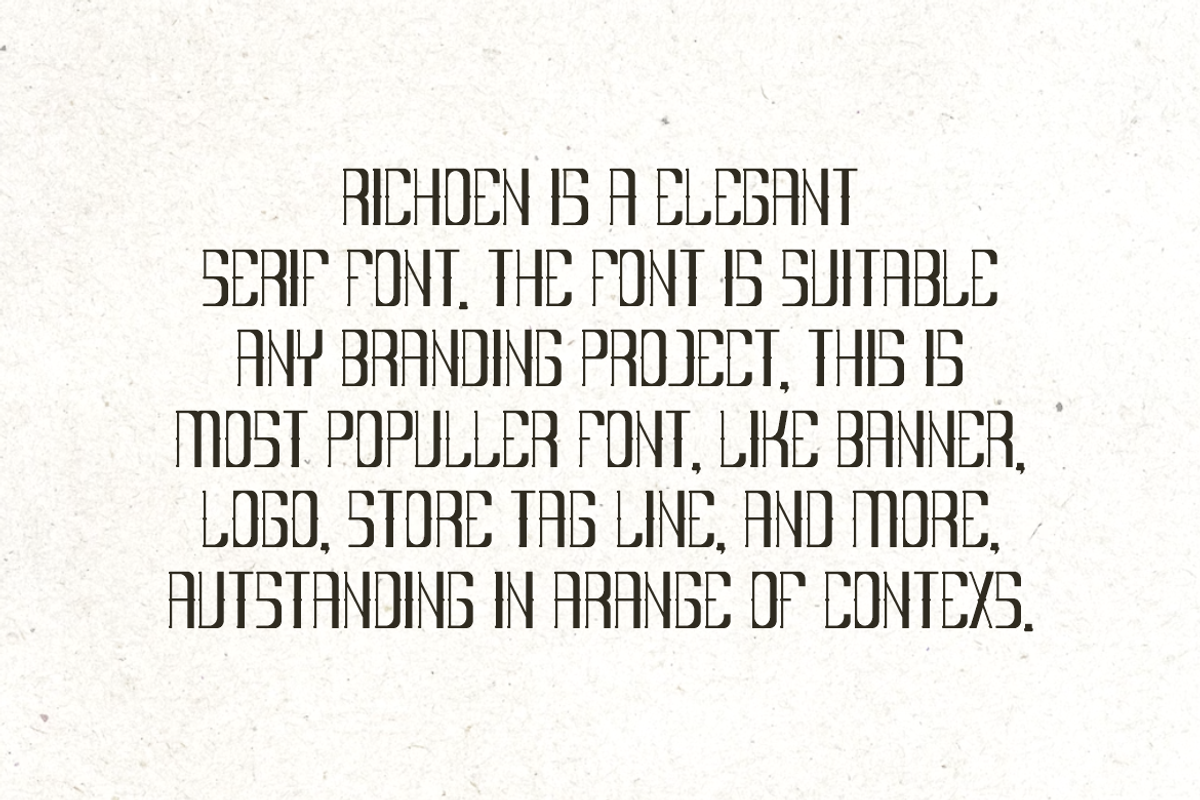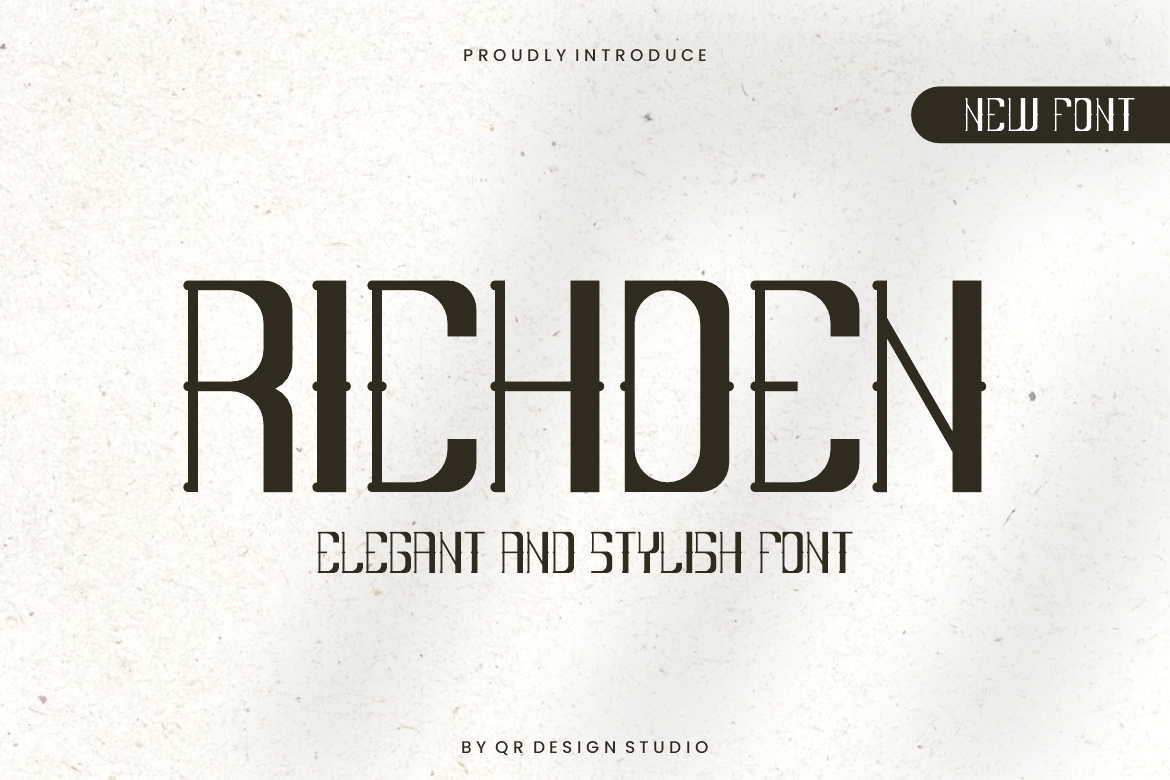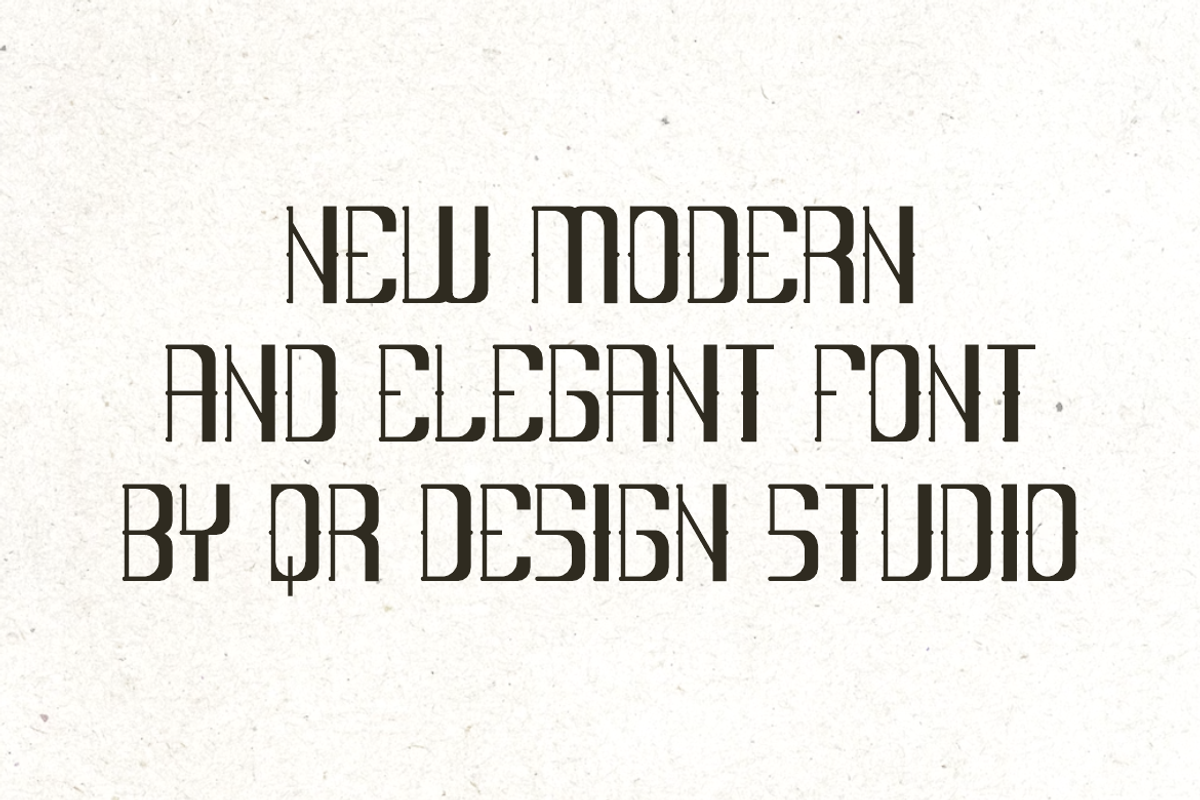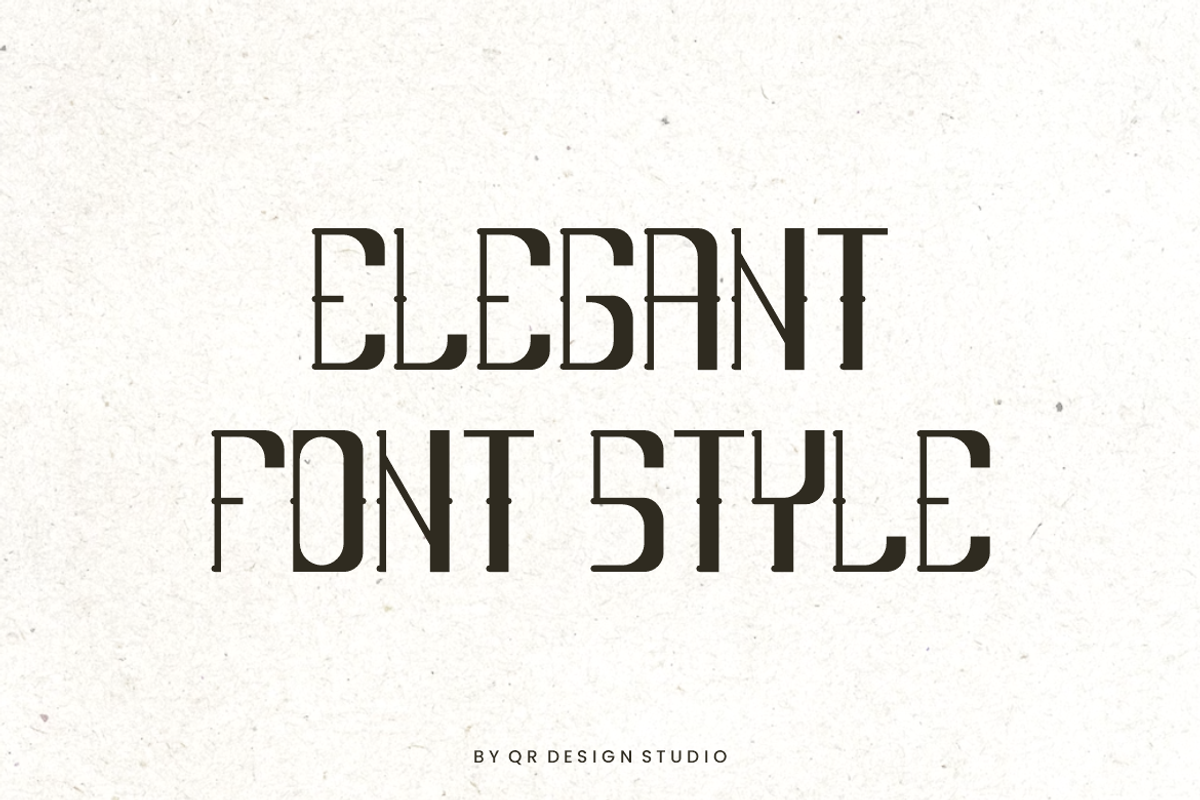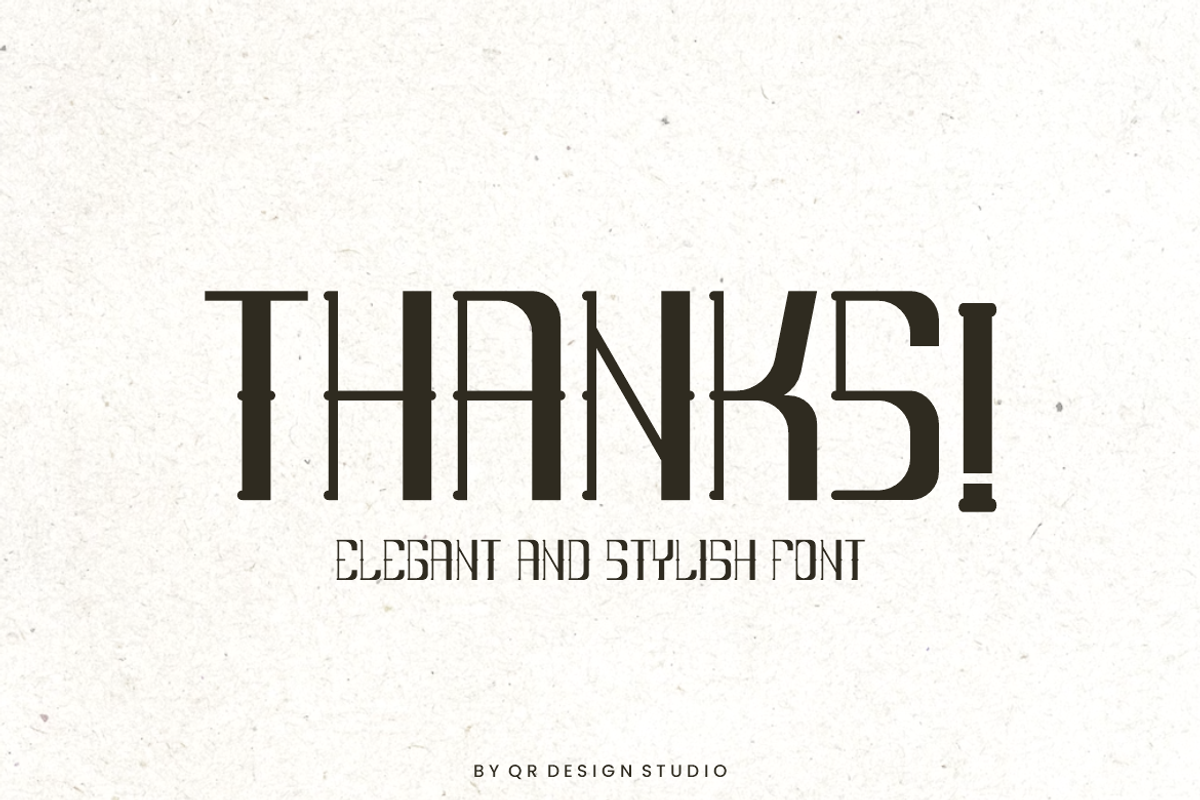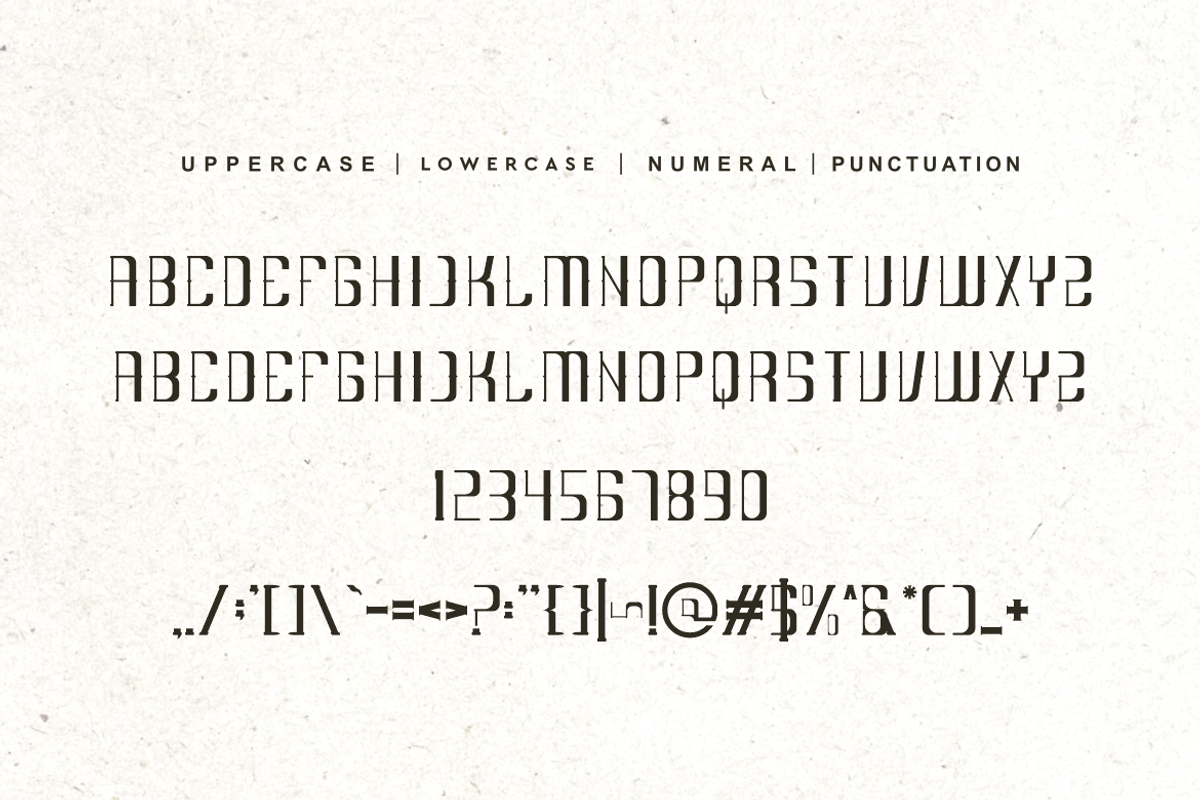
Richoen - Elegant Font
Richoen - Elegant Font is a stylish and authentic display font. The font is suitable for any branding project like poster, logo, sport, and many more. Outstanding in a wide range of contexts.